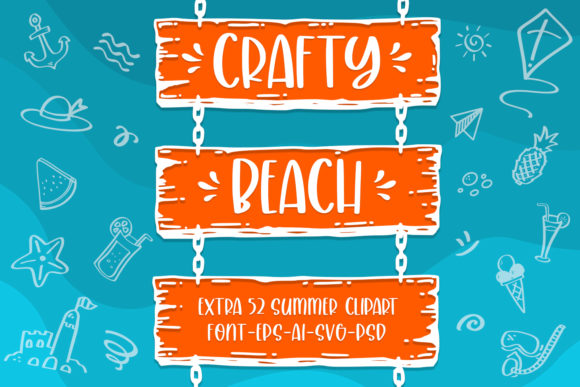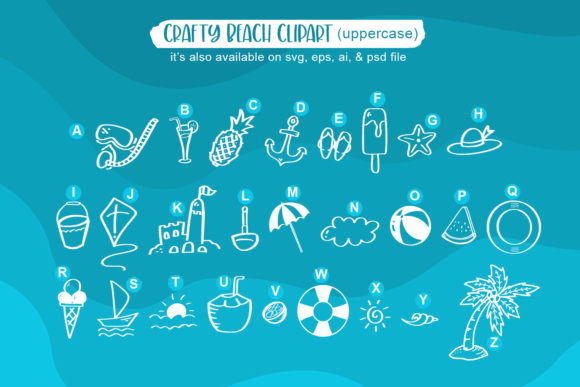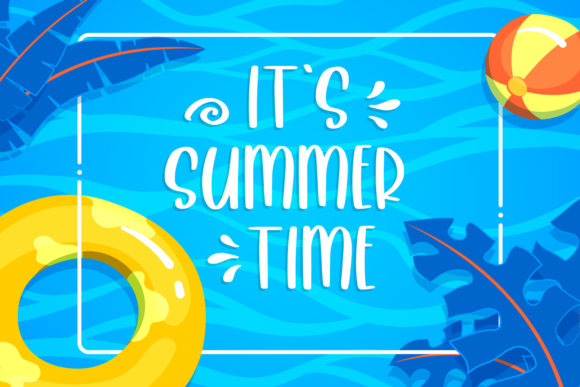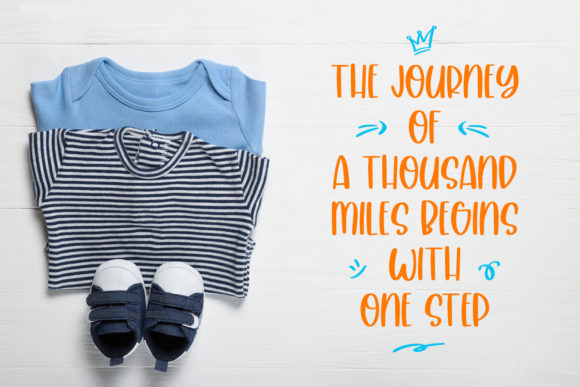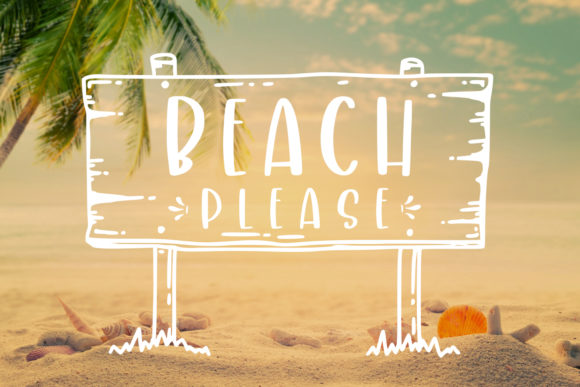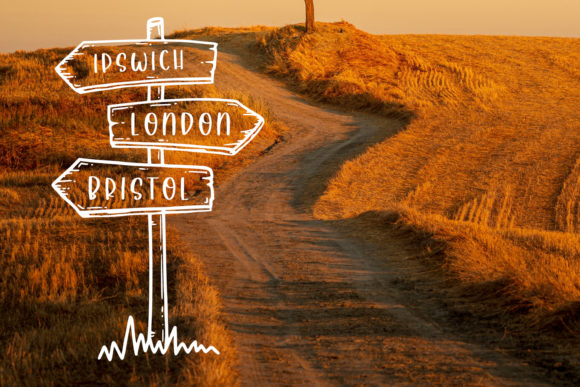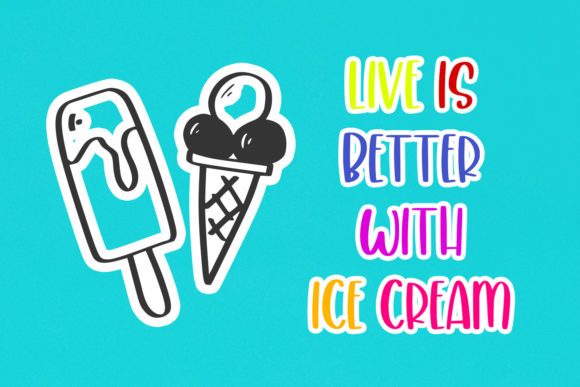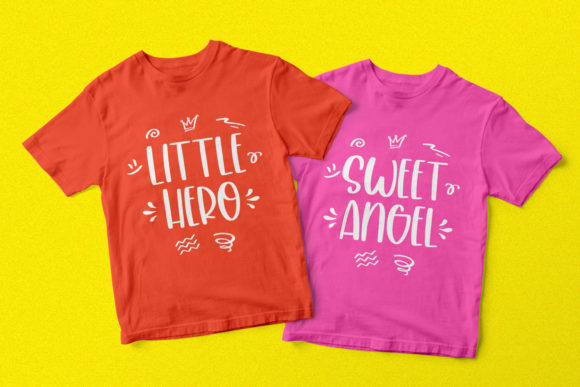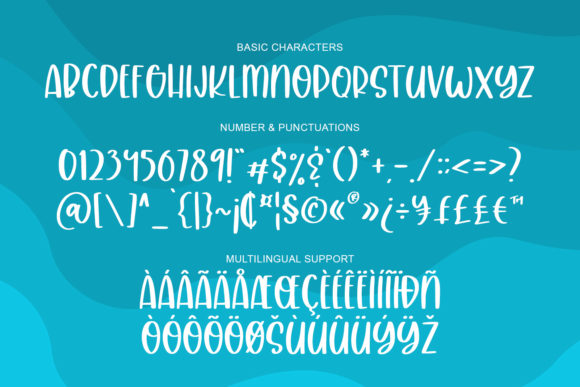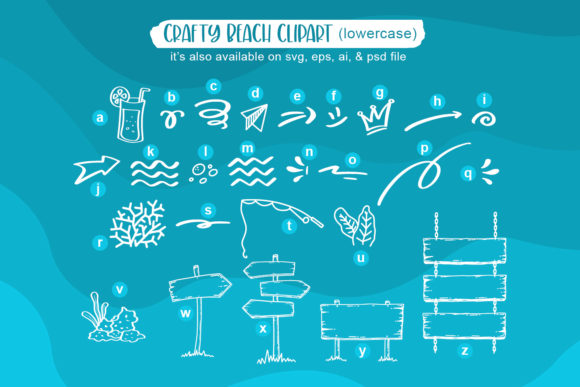
Crafty Beach Font
About Crafty Beach Font
Crafty Beach is a casual and cute handwritten font. It brings cute extra doodles for your summer crafting projects and it will elevate a wide range of design projects to the highest level, be it branding, headings, wedding designs, invitations, signatures, logos, labels, and much more!